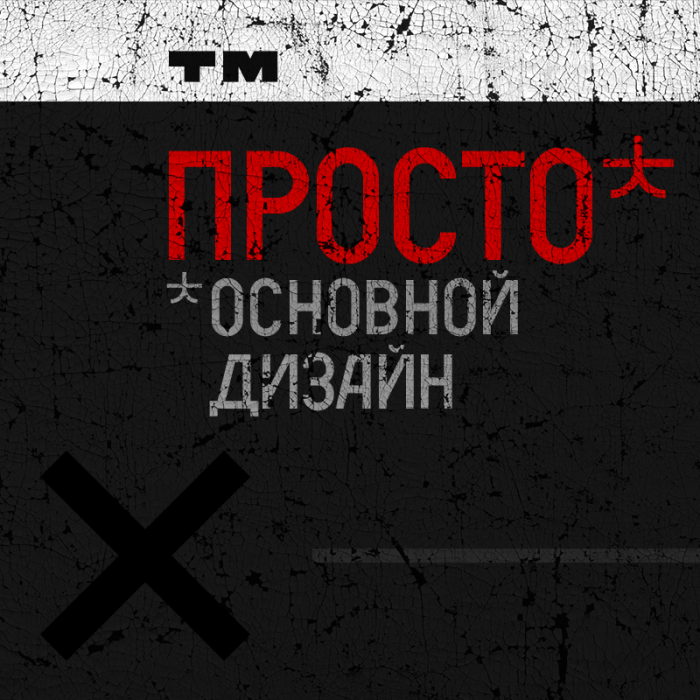
• For reason lost in the mist of time, I wanted to do Cyrillic letters. Cyrillic text looks really cool written down, no? Maybe that was the reason. Who knows.
However, not knowing Russian at all, the nuances of the written script are unknown to me. Hopefully, I got at least some of the letters right.
Crazy but cool, my only question is about the numerous odd letter spacings.. done deliberately or pending kerning corrections?
You're right. They *are* odd. At one point the A M V and W were shaped differently. The kerning was done based on that. Focusing on the Cyrillic letters, I forgot to reset them.
I always have problems with Cyrillic, because it is an alphabet that is very far from my usual uses. But enormously friendly fontstructors (especially Sychiov) have always appeared here who have given their opinion on my attempts and proposed solutions to my failures...
Not bad for a first time. It seems to me that optical compensation for round letters is superfluous here. This is a common trick - to reflect the Latin alphabet to give a Cyrillic look. In the Cyrillic alphabet, constructivist alternative letters can be made (with squares instead of arcs), you can use the Rodchenko font for reference. And now Д (and A) has a more constructivist look, because it is different from Л. Also here we need to fix the extra gap in the letter Ж and the short upper part of Б.
I also think that something needs to be done with the letter У, now it seems too wide. Perhaps a look like this is done in this font is suitable.
where's the overhang (like on Q, S, etc.) on J, U, etc.?